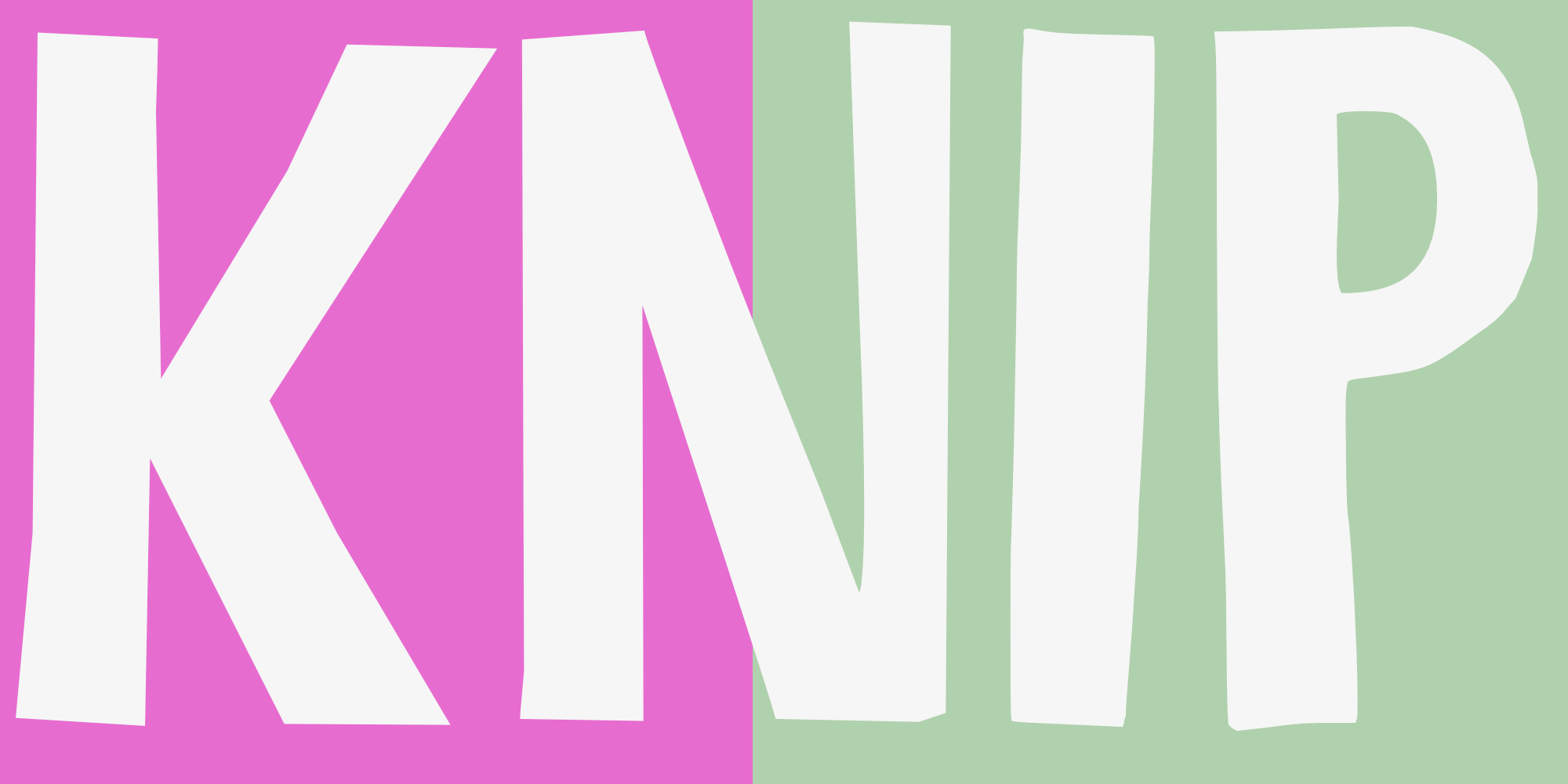
Knip Font Free Download is a playful and distinctive display typeface perfect for designers seeking a fun, handcrafted aesthetic. Please note that you must purchase this font for commercial use. You can download it for free for testing purposes. This font shines in applications like children’s book covers, event posters, logos, branding, and social media graphics, where its quirky, cut-out style adds charm. Its unique, paper-cut design makes it exciting, offering a whimsical and creative vibe that captivates audiences. The Knip Font family includes Regular and Italic styles, providing versatile options for creative projects.
Elevate your designs with Knip Font Free Download, a typeface crafted by David Kerkhoff at Hanoded, inspired by cutting shapes from black paper and digitizing the result. Its cartoon-like, semi-bold letterforms are ideal for projects needing a touch of whimsy, such as toy packaging, animated titles, or playful marketing materials. The font’s handcrafted look, derived from its paper-cut origins, ensures a unique, artisanal feel while maintaining readability for headlines and captions. Whether you’re designing a poster for a kids’ event or creating a logo for a fun brand, Knip Font delivers a lighthearted, standout aesthetic. Its versatility spans both print and digital media, making it perfect for vibrant, eye-catching compositions. The font’s playful yet structured design reflects a creative process that sparks joy, appealing to designers who value originality. Download it today from sources like dafont.com or myfonts.com to explore its potential and infuse your projects with a charming, handcrafted energy that leaves a lasting impression.